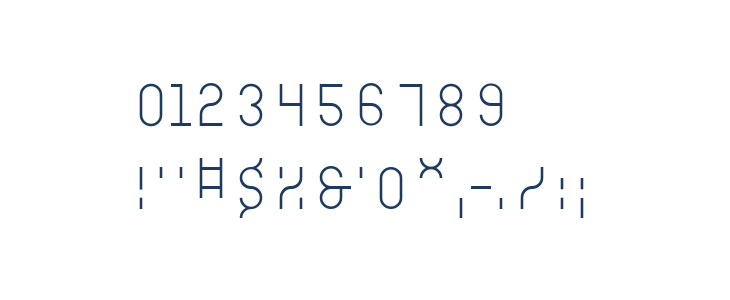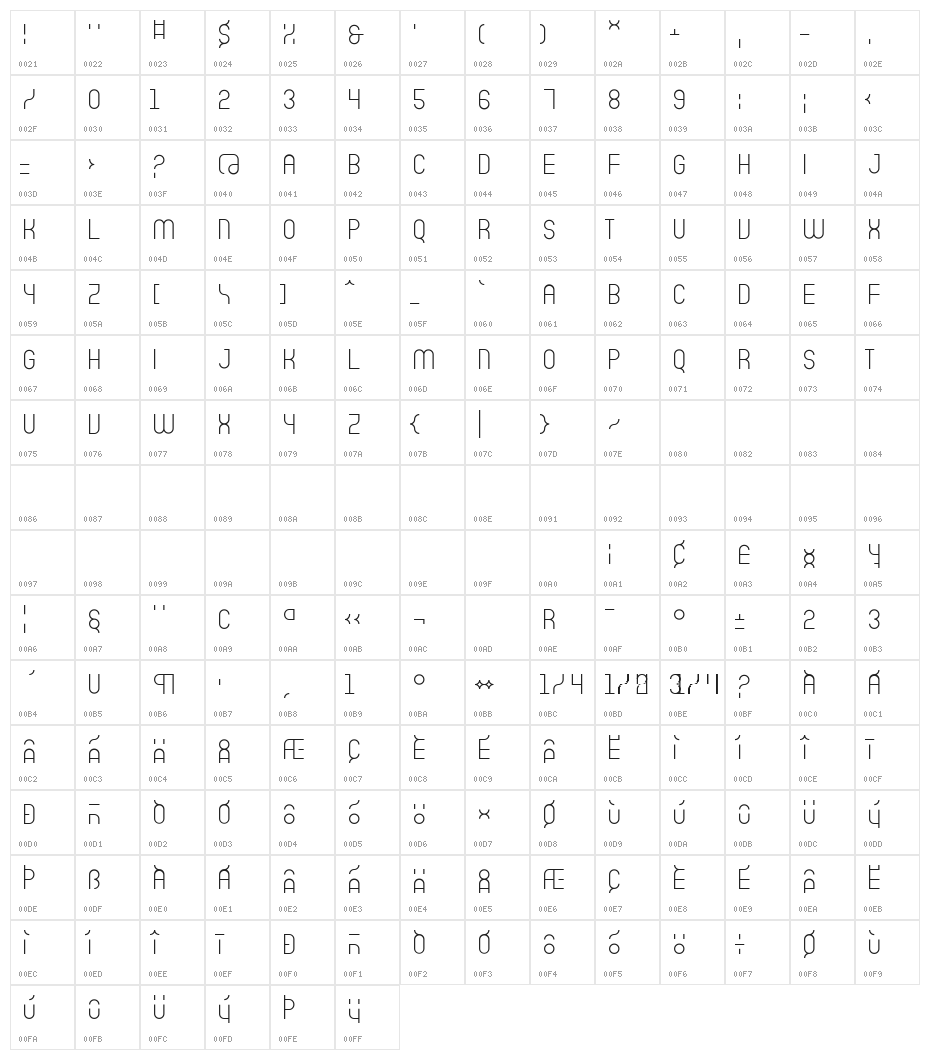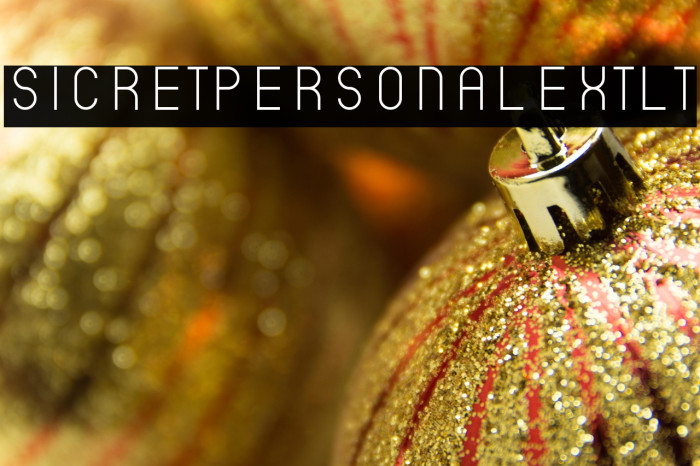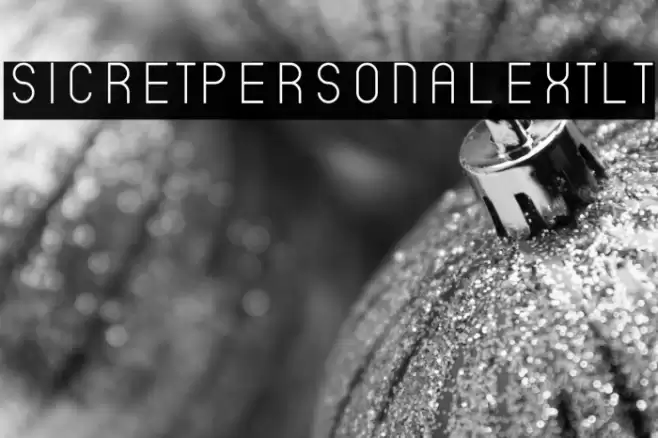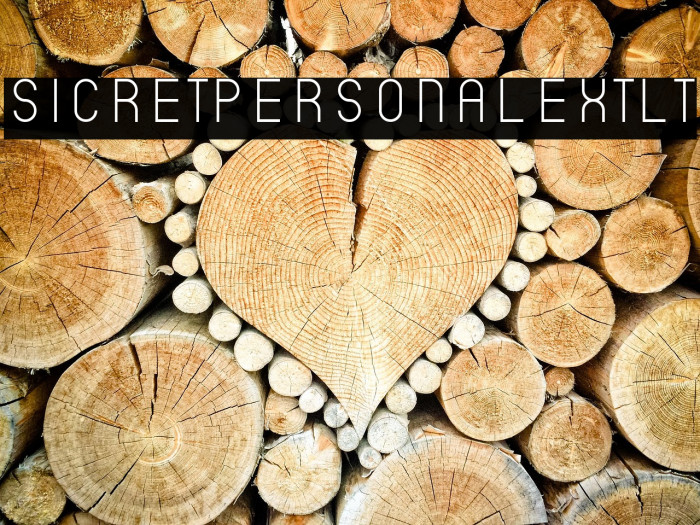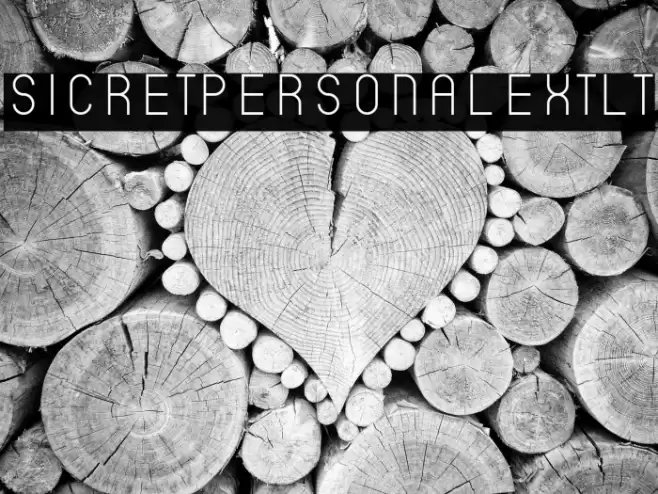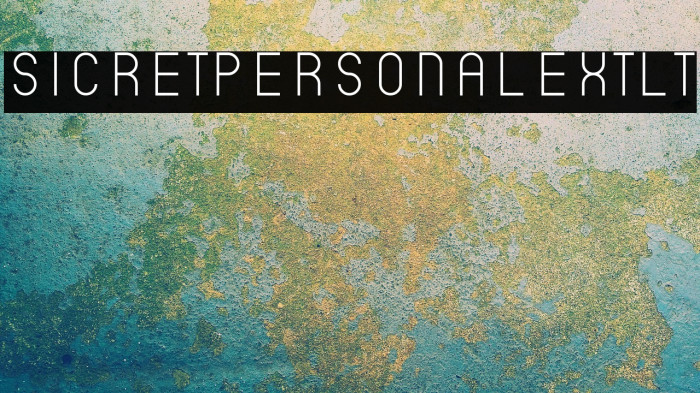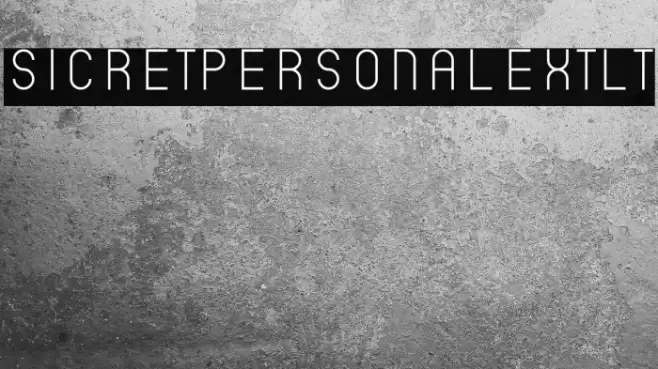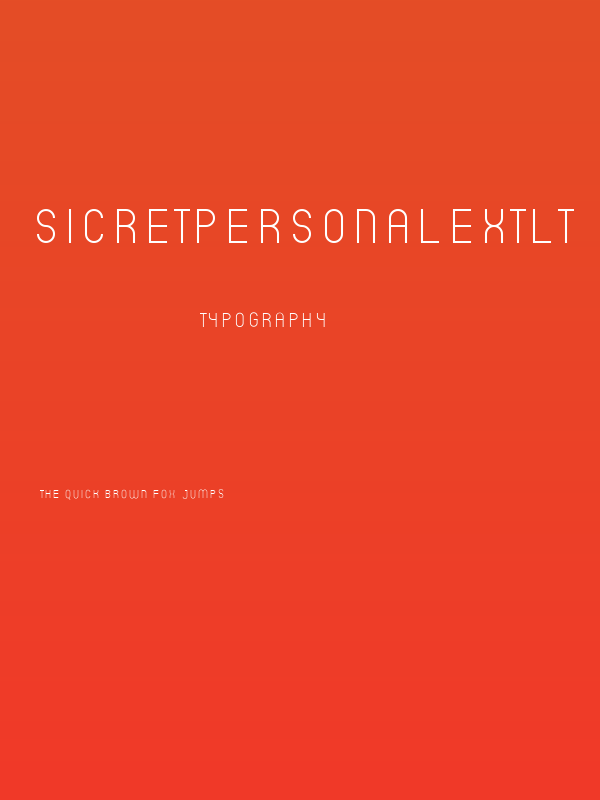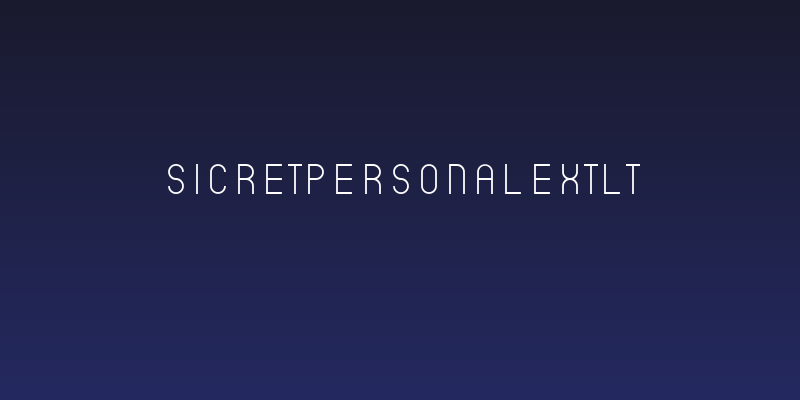
SicretPERSONALExtLt Font
SicretPERSONALExtLt Description
This font features a clean and modern design with a geometric structure. The characters are constructed with uniform stroke widths, giving it a minimalist and contemporary appearance. The uppercase and lowercase letters are well-balanced, with rounded edges that soften the overall look. The numerals are clear and easy to read, maintaining the same geometric style. Special characters are included, matching the font's sleek aesthetic. This font is versatile and can be used in various design contexts where a modern and clean look is desired.